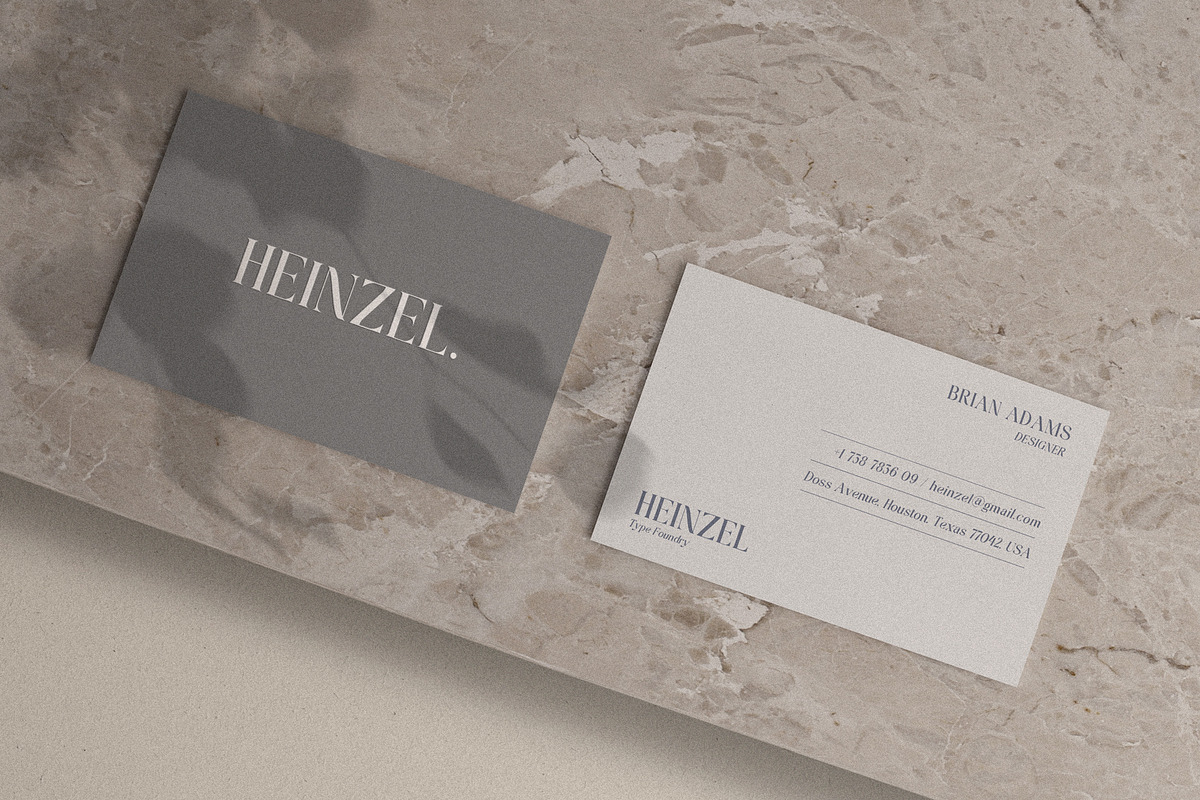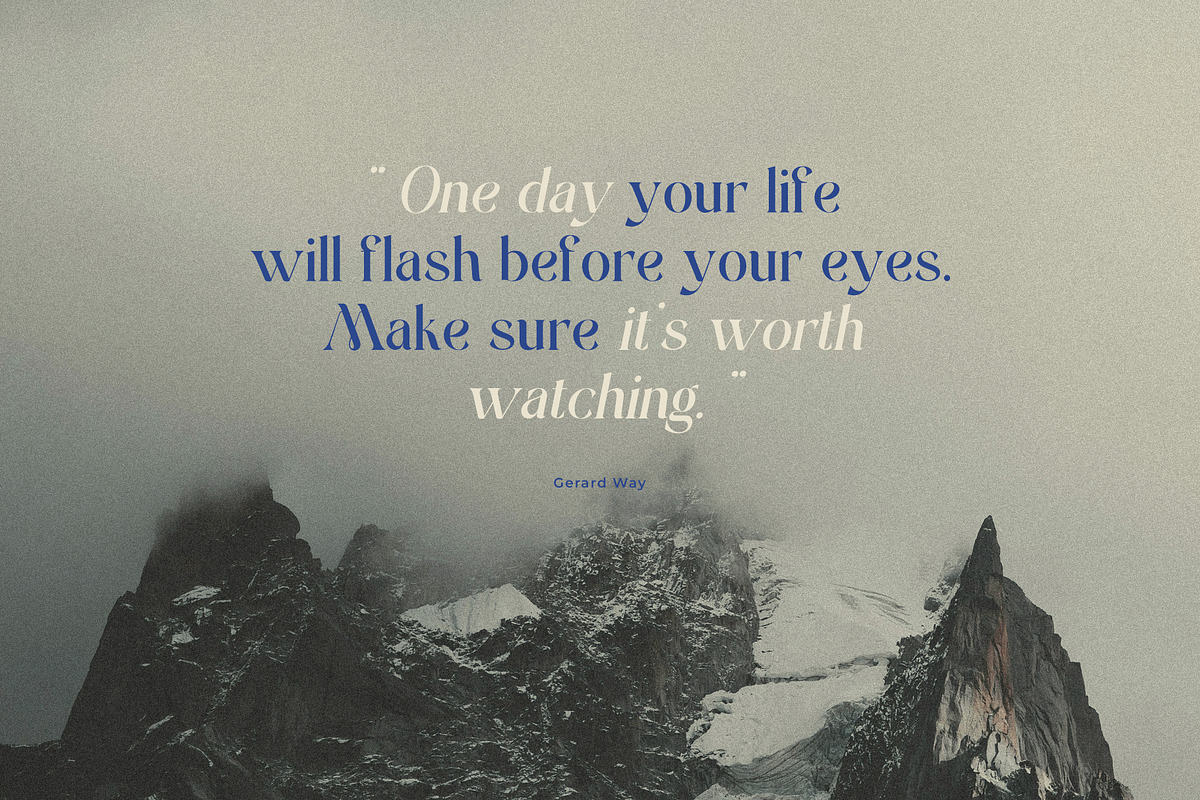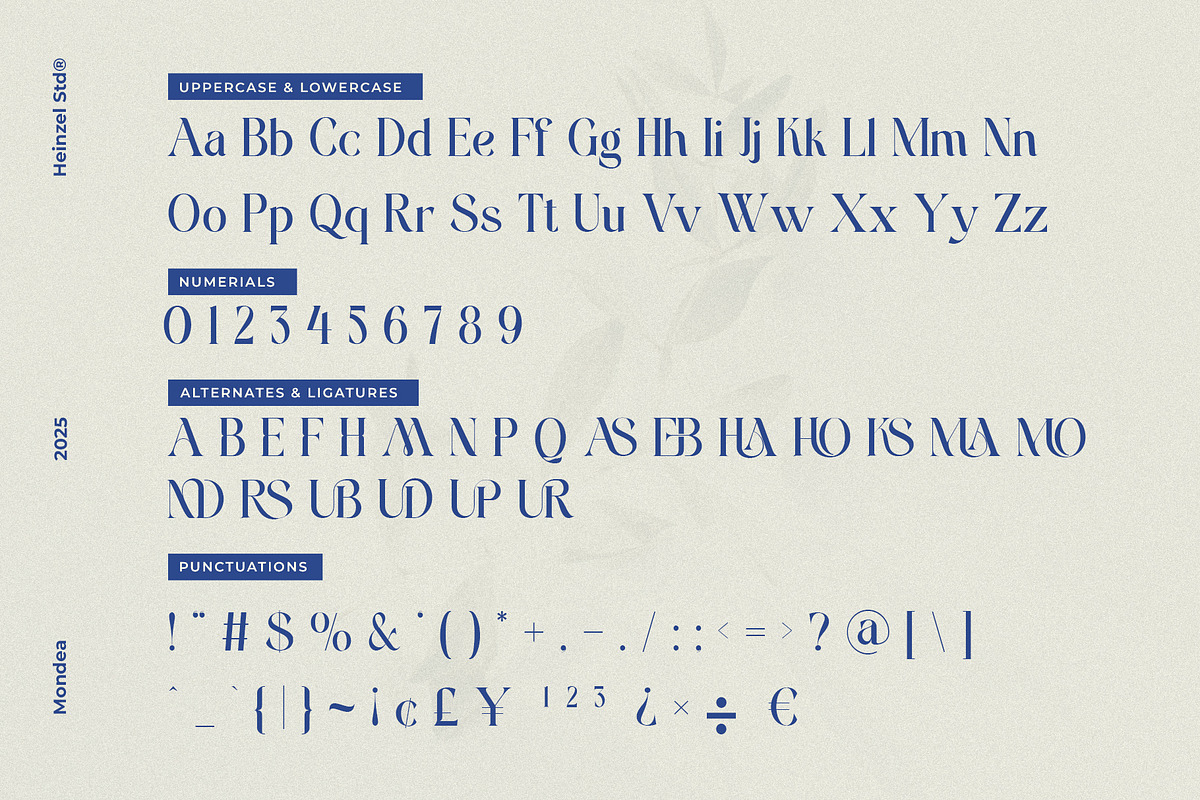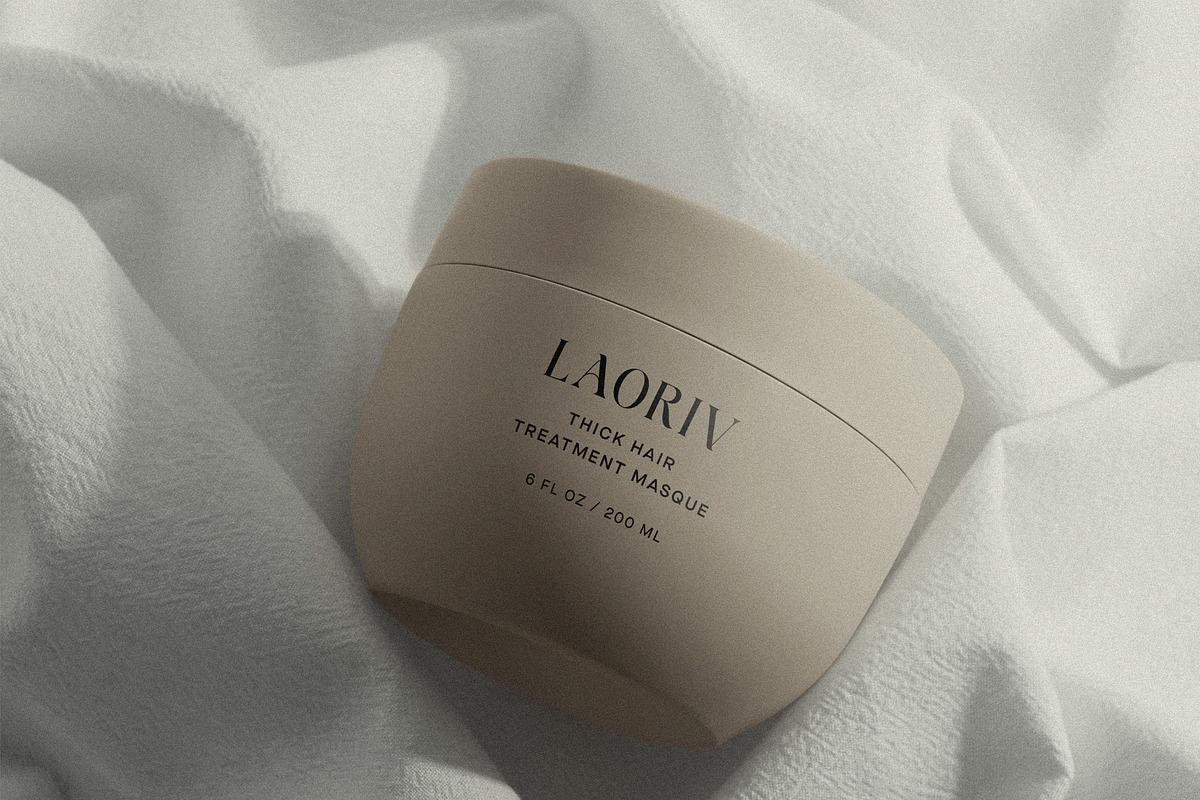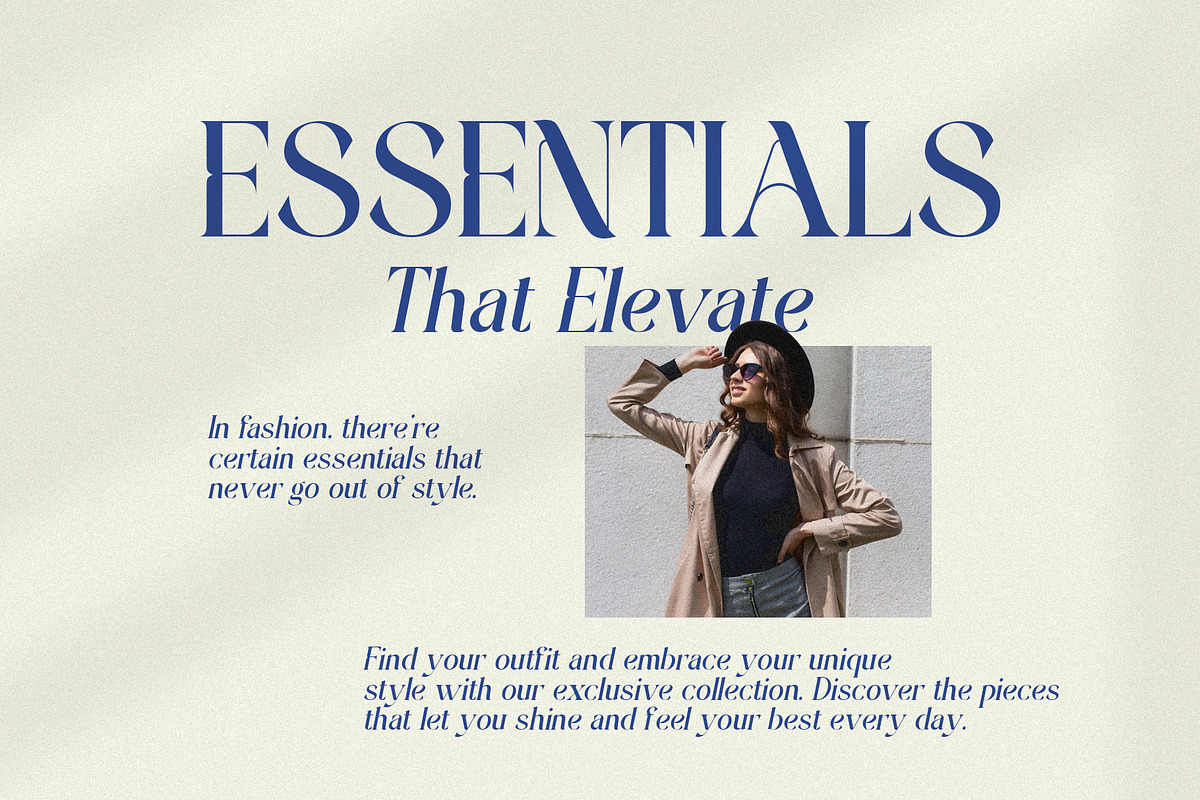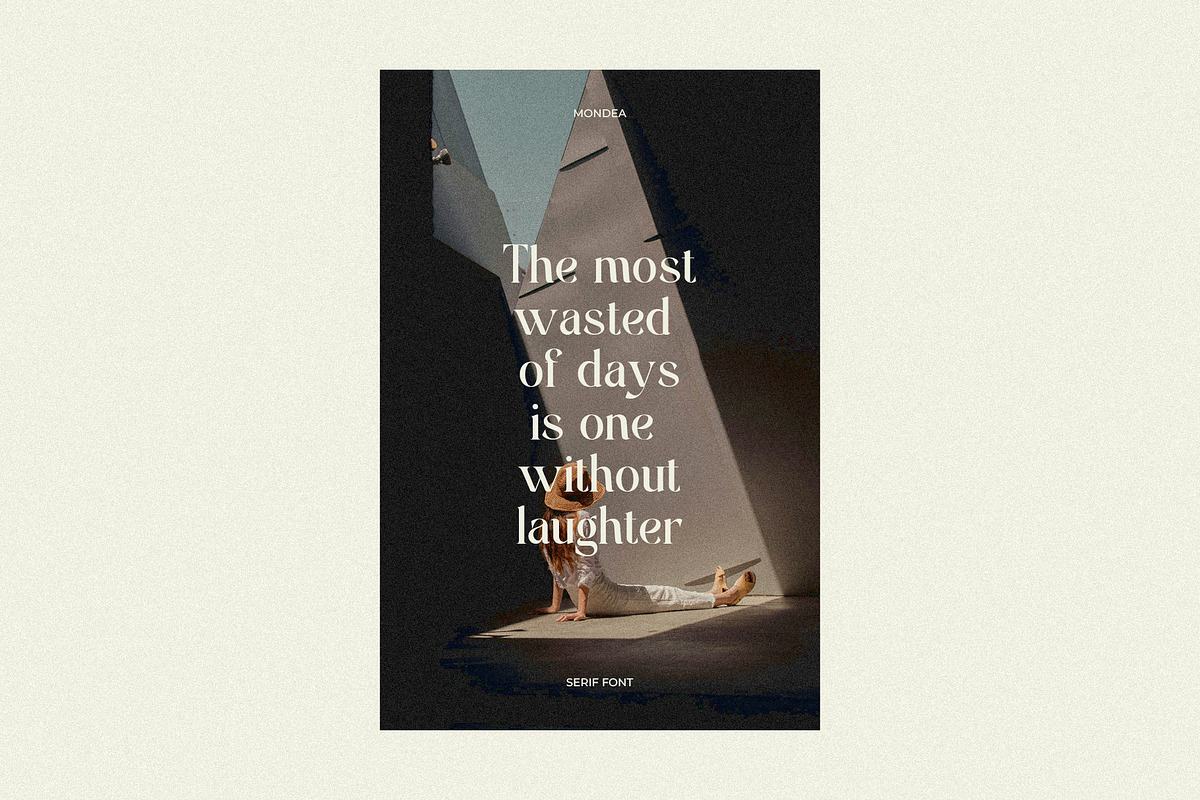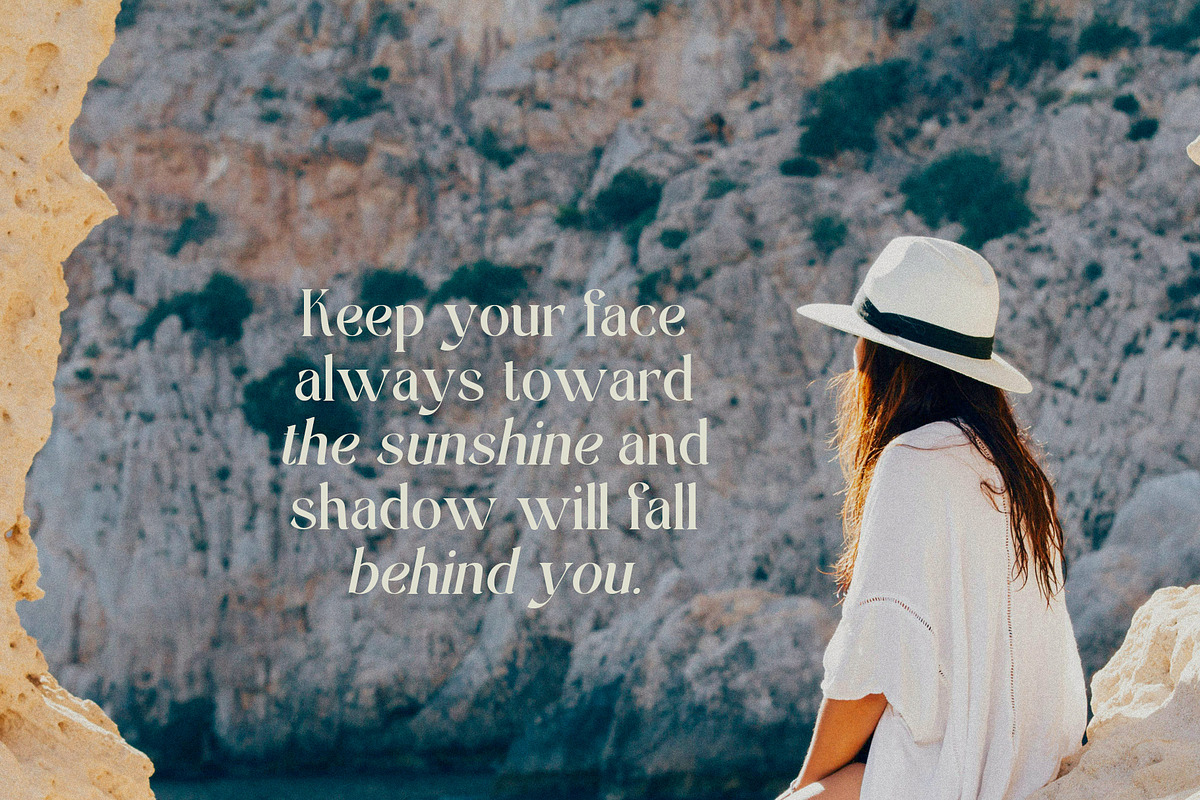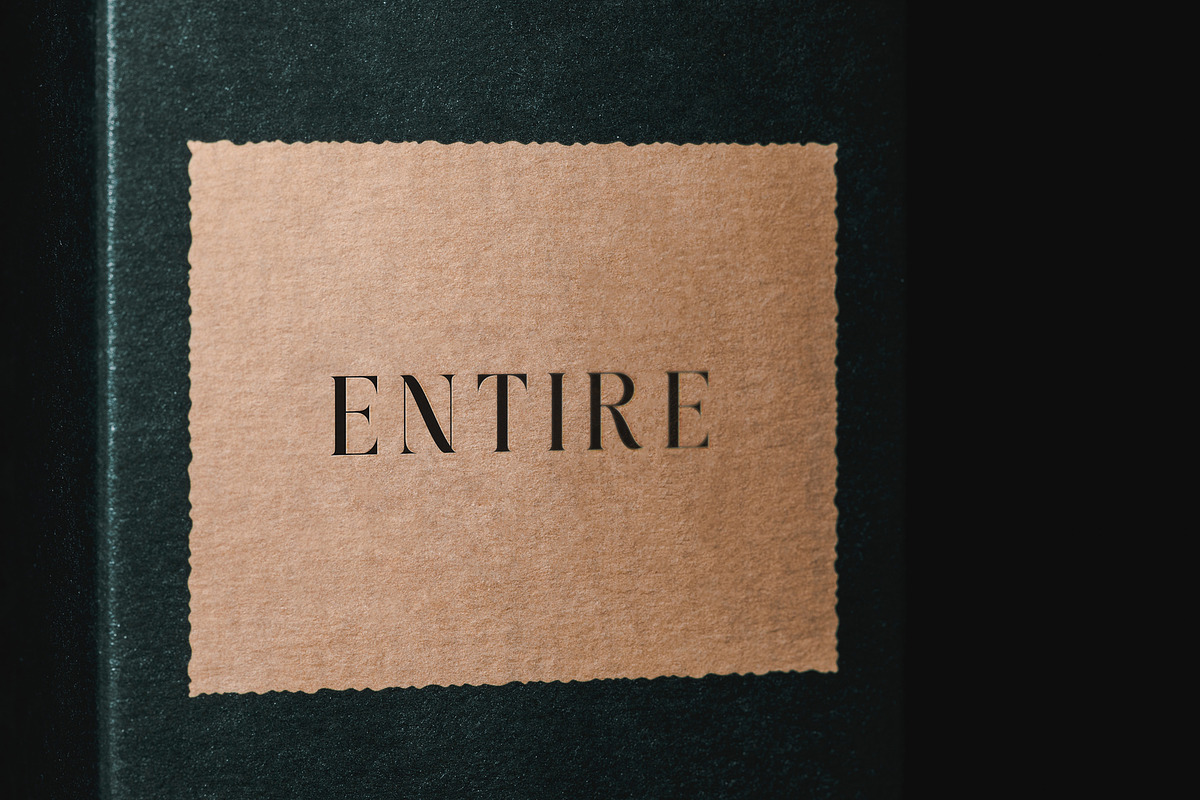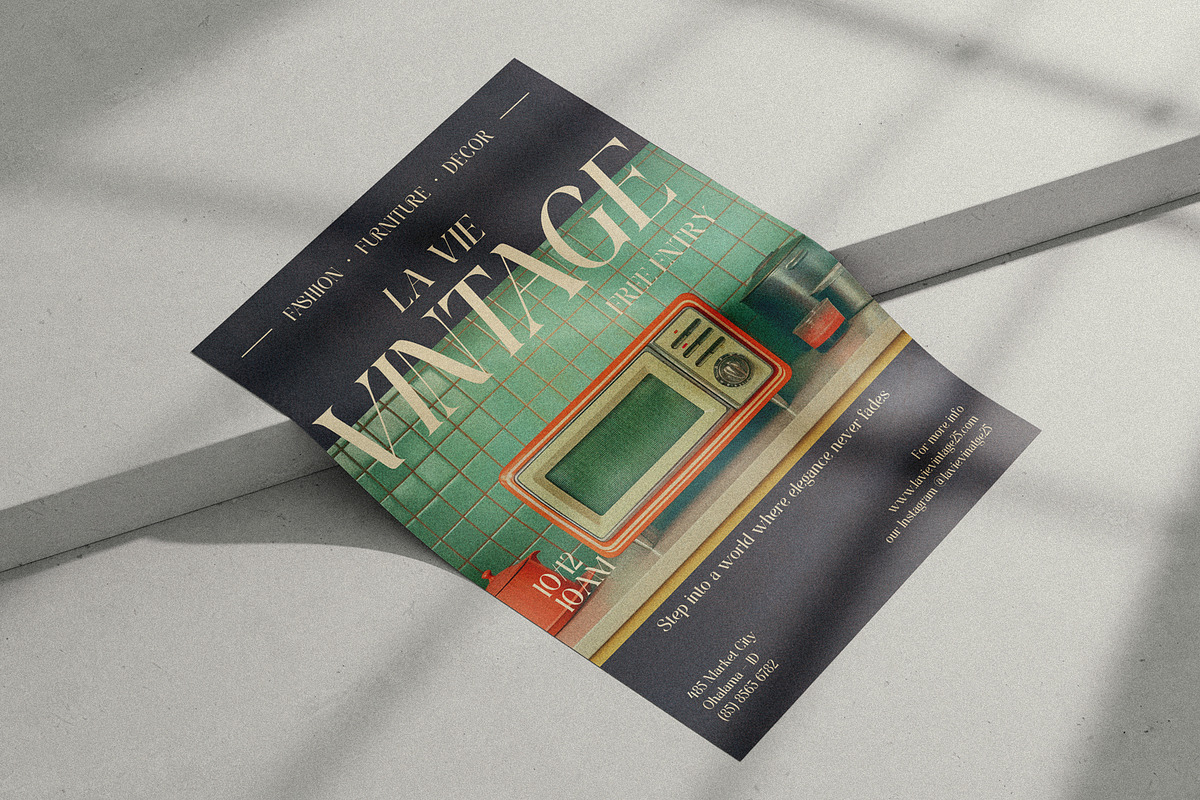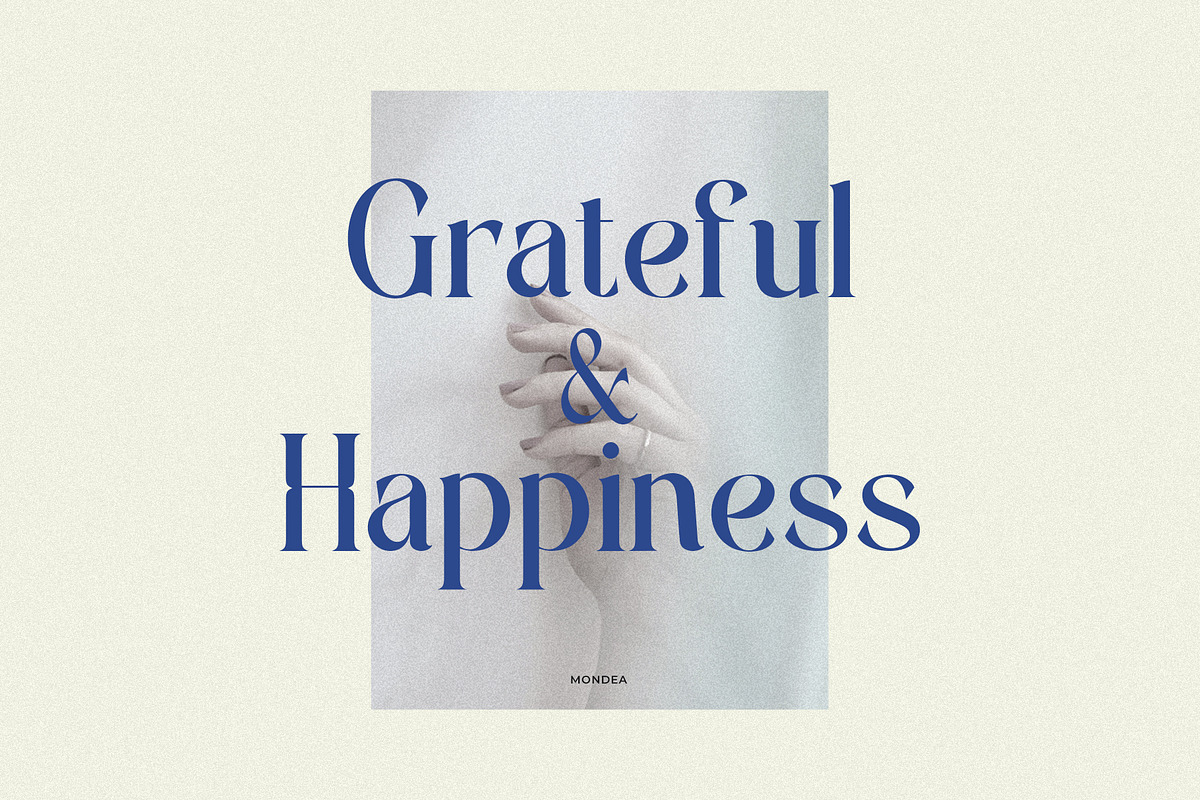
Mondeba Modern Serif Font
Mondeba is a modern serif font that blends timeless elegance with contemporary sophistication. Designed with refined ligatures and stylish alternates, Mondea brings a graceful flow and distinctive character to every word. Its balanced proportions and smooth curves make it perfect for luxury branding, fashion editorials, magazines, logos, wedding designs, and high-end packaging. Mondea delivers a polished, professional look while remaining versatile for both print and digital projects. If you’re looking for a serif font that feels modern, artistic, and premium, Mondea is a strong choice to elevate your visual identity.
Mondeba Features:
Numerical and Punctuation
Alternates and Ligatures
Multilingual Language